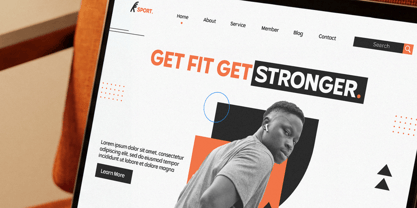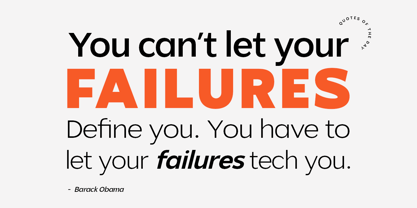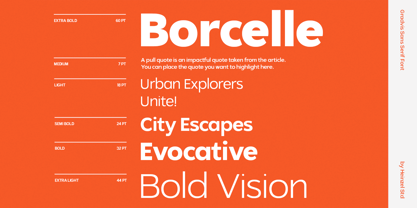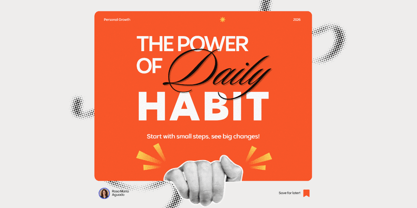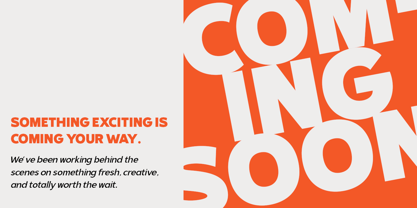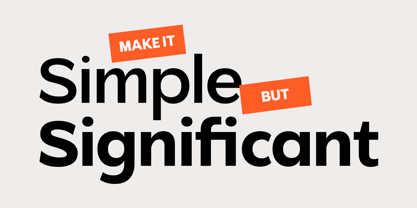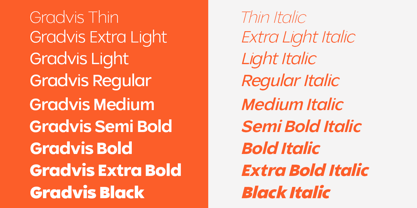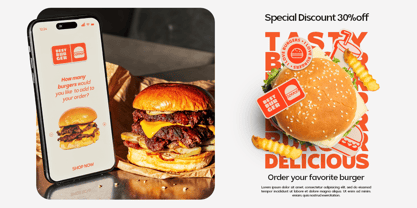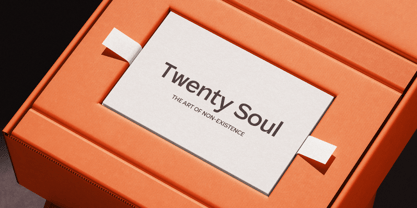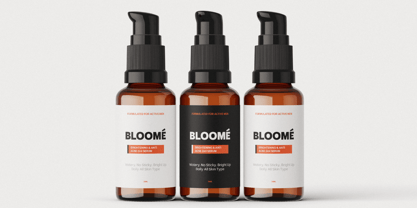
Gradvis
The Gradvis Font Family was designed by Nofi Sofyan Hadi and published by Heinzel Std. Gradvis contains 18 styles and family package options. More about this family
Gradvis Sans is a modern and versatile sans-serif typeface designed to bring clarity, flexibility, and contemporary style to any project. Built with precision and a clean geometric structure, Gradvis delivers a smooth visual flow that works perfectly across digital and print media. Its minimalist aesthetic makes it ideal for branding, editorial layouts, web design, UI/UX, packaging, and more. This font family includes 18 styles with italic versions, offering a full range of weights from thin to bold. The variable weight system allows designers to fine-tune typography effortlessly, creating dynamic hierarchy and consistent visual rhythm. Whether you need subtle elegance or strong typographic impact, Gradvis Sans adapts seamlessly.